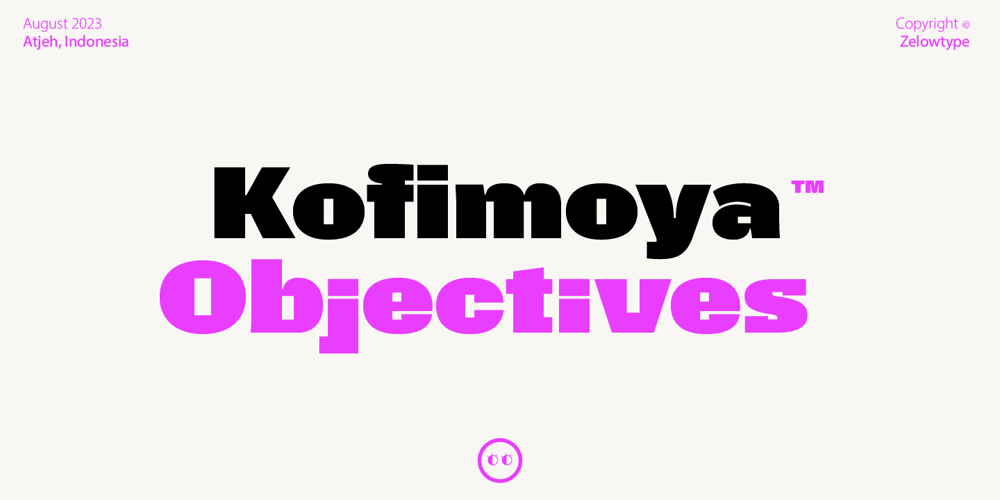
ZT Kofimoya
ZT Kofimoya font
ZT Kofimoya Font Family was designed by Khairun Nas and published by Zelow Type. ZT Kofimoya contains 2 styles and family package options. ZT Kofimoya is a brand new font that offers two distinct styles to choose from. The first style features a stiffer sans concept with a somewhat square shape, giving it a modern and assertive appearance. The second style is a normal sans, with a slightly rounded shape, providing a softer and friendlier look. With these two different styles, ZT Kofimoya offers flexibility in design and can be used for a variety of purposes.Thanks for using this font ~ Zelowtype